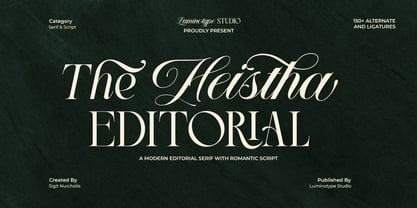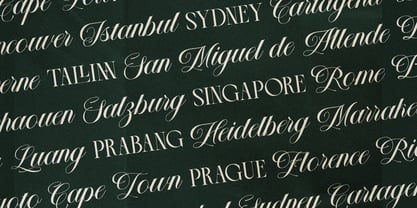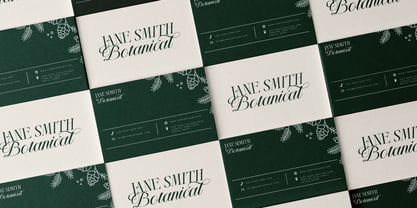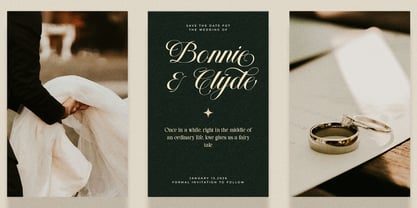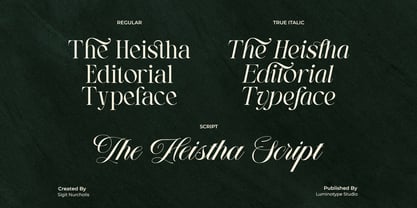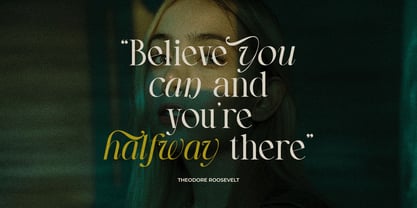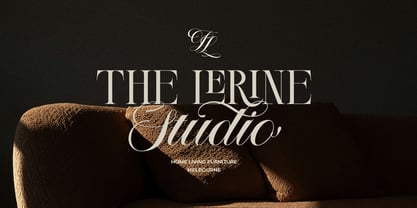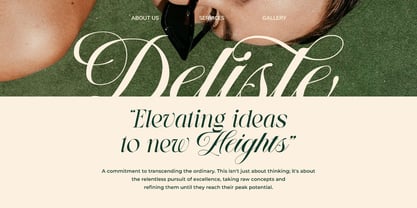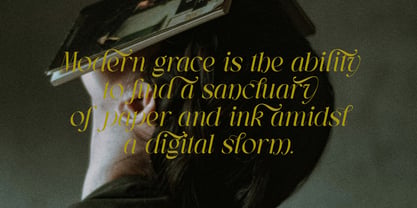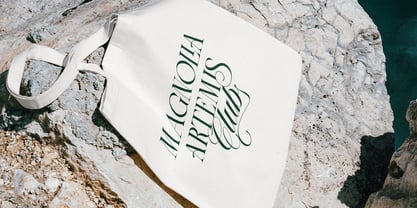
The Heistha Editorial Font Duo
by Sigit Nurcholis
The The Heistha Editorial Font Duo Font Family was designed by Sigit Nurcholis and published by Sigit Nurcholis. The Heistha Editorial Font Duo contains 3 styles and family package options. More about this family
Elevate your design projects with The Heistha Editorial, a stunning font duo that embodies timeless sophistication. By perfectly pairing a refined, modern serif font with a sweeping, elegant script, this collection is meticulously crafted to infuse your work with a premium, classy aesthetic. The Heistha Editorial offers incredible versatility for creatives looking to make a bold, professional statement. It is flawlessly best used in luxury logos, exquisite product packaging, cinematic movie titles, captivating posters, high-fashion editorial layouts, and striking website headers. Feature : Character Set : Includes a full set of Uppercase and Lowercase Numerals & Punctuation Works on PC & MAC Simple Instalation Multilingual Support PUA Encoding What you get : The Heistha Editorial Regular font The Heistha Editorial Italic font The Heistha Editorial Script font